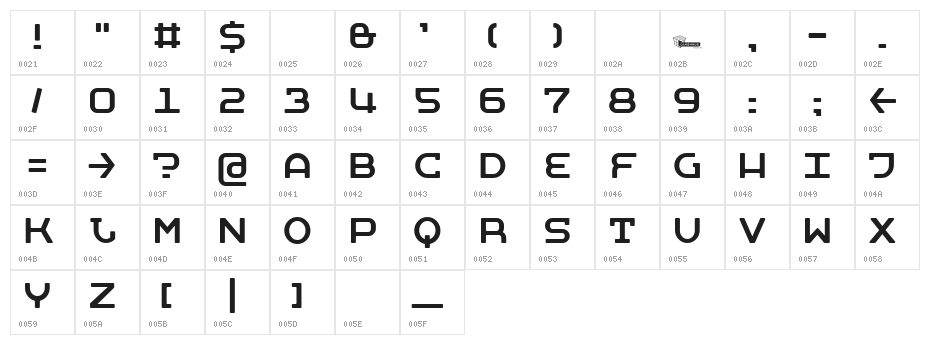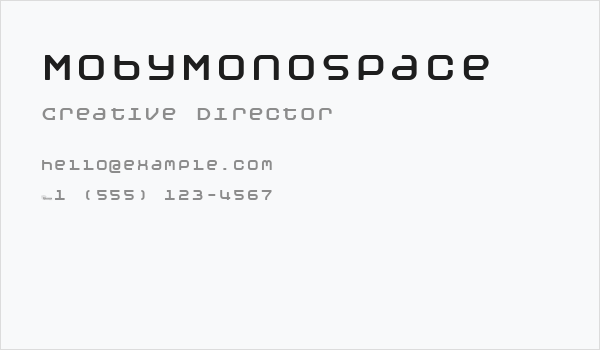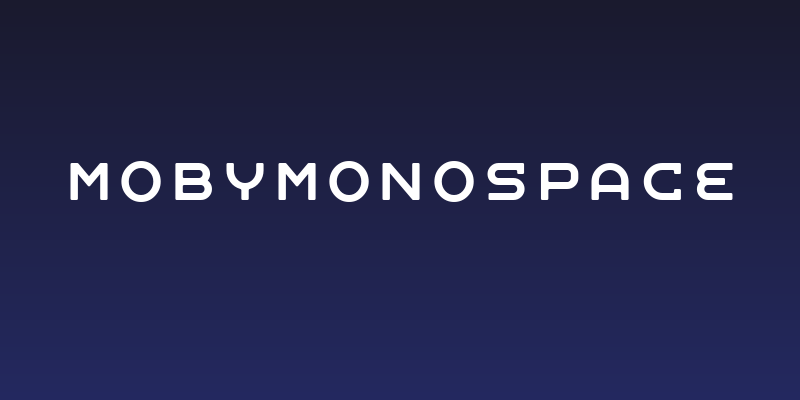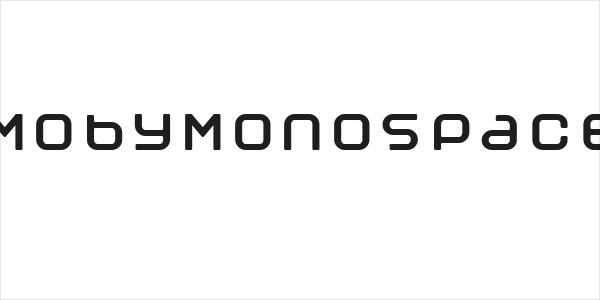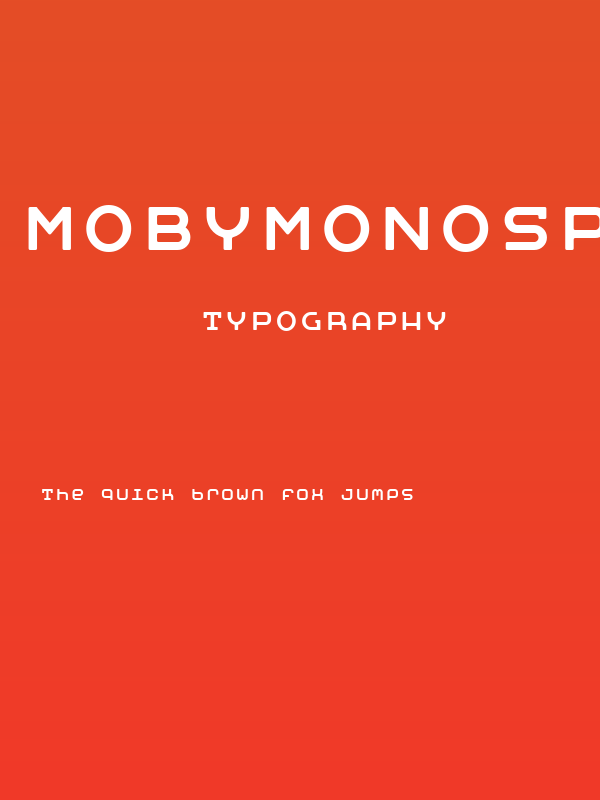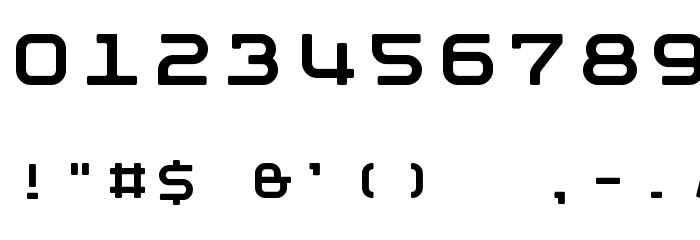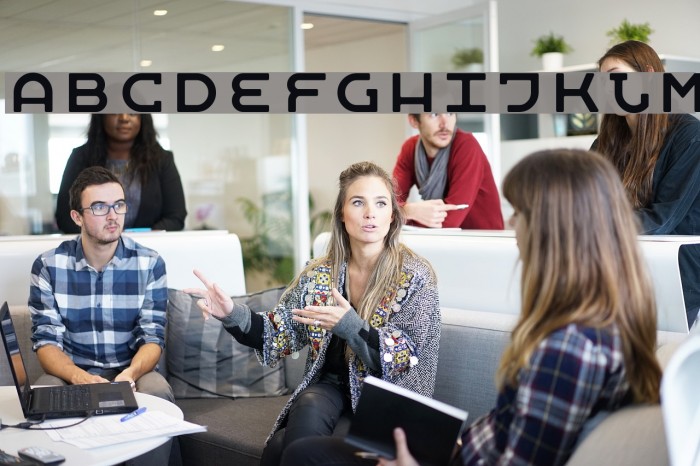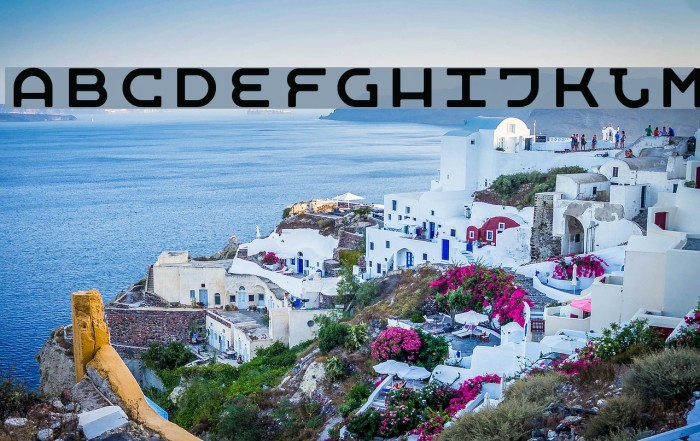
MobyMonospace Font
MobyMonospace Description
This font features a clean, modern monospaced design with uniform character width, making it ideal for coding and technical documentation. The characters are well-balanced with rounded edges, providing a soft yet precise appearance. The uppercase and lowercase letters maintain a consistent height, enhancing readability. The numerals are distinct and easily distinguishable, which is crucial for data-heavy applications. Special characters are clearly defined, supporting a wide range of uses. The overall aesthetic is minimalistic, with a focus on clarity and functionality.
| Use Case | Coding, Technical documentation, Data visualization |
| Proposed Projects | Ideal for coding, technical documentation, data visualization, and minimalist design projects. |